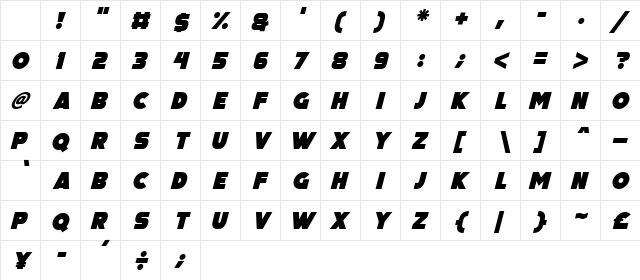
Complete Big Black Bear Italic glyph index. Displaying only characters natively supported by Big Black Bear Italic font.
Big Black Bear is a composed and adaptable typeface that performs quietly and consistently across a wide range of design contexts. The slanted form adds forward momentum and visual energy.